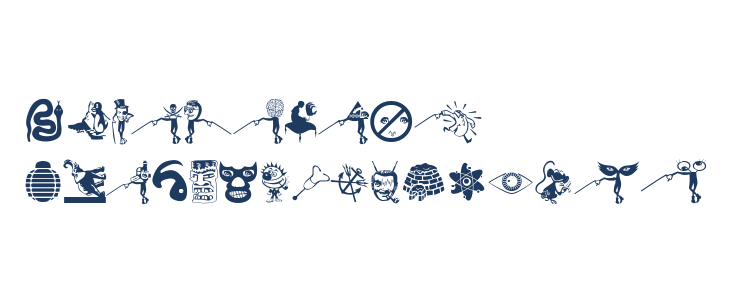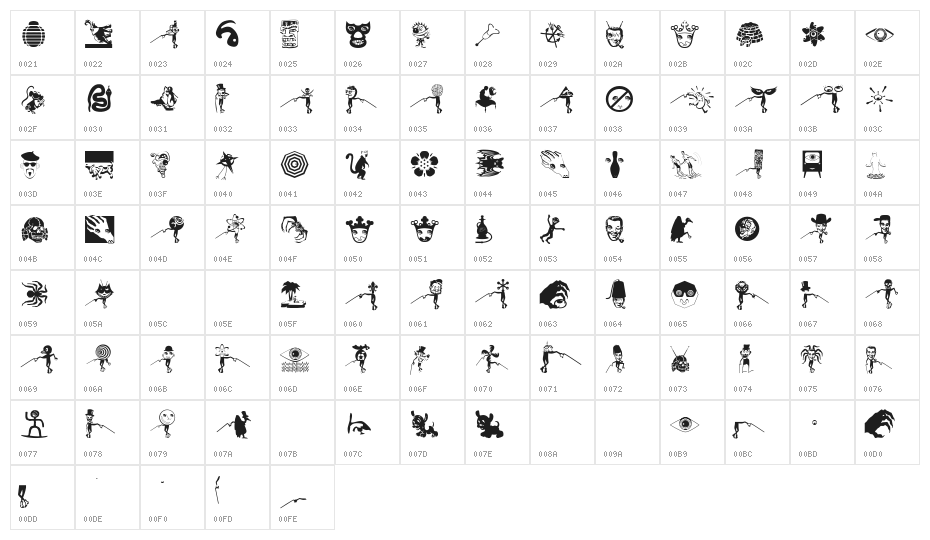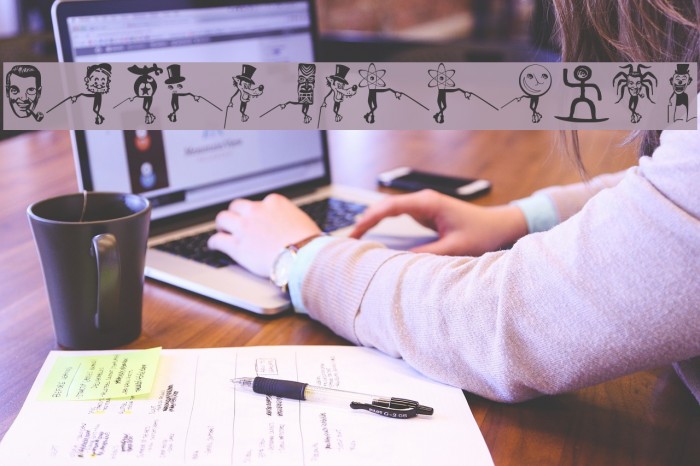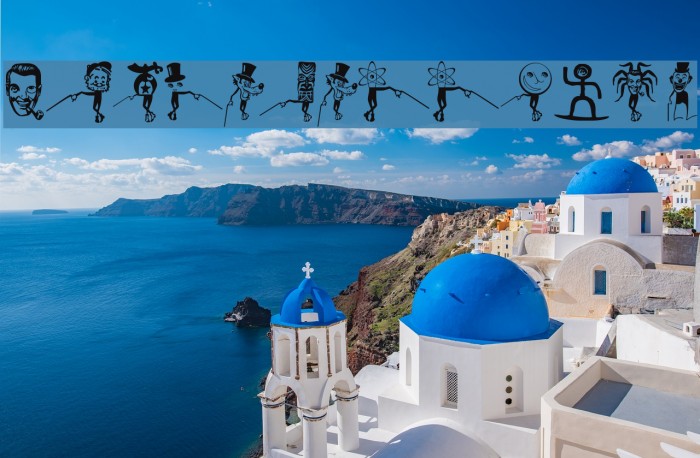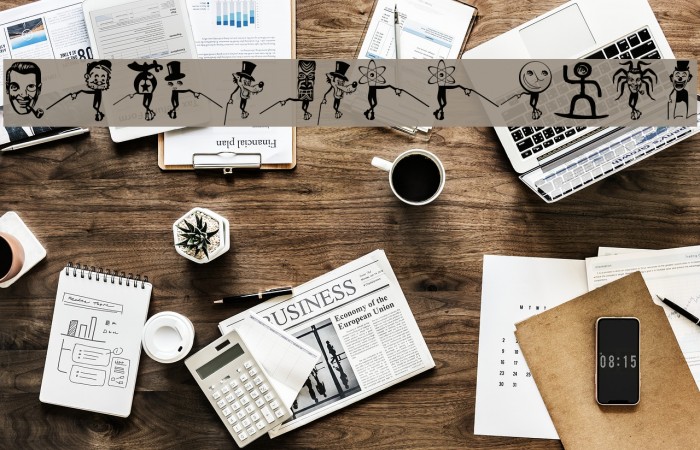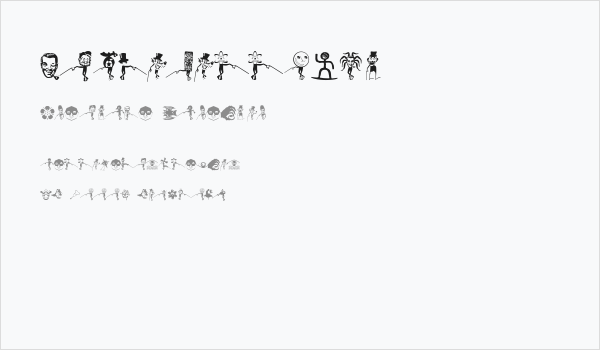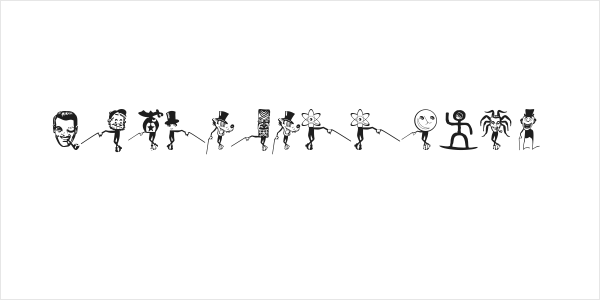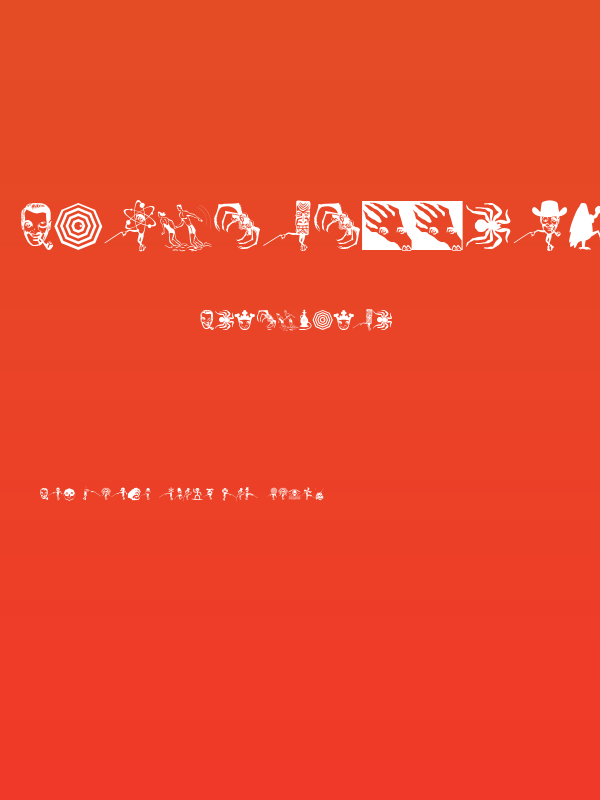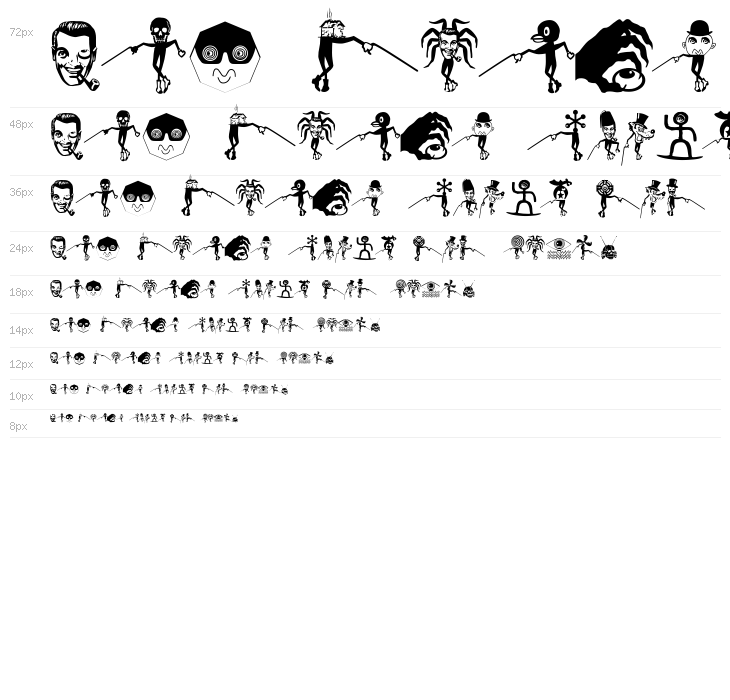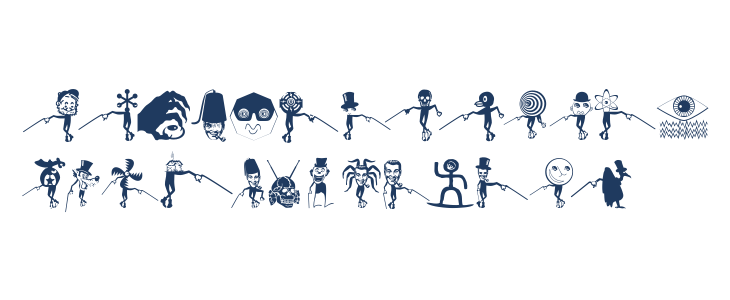
TangoHollywut Font
TangoHollywut Description
A highly decorative and eclectic dingbat font featuring surreal, whimsical, and pop-culture-inspired illustrations in place of standard alphanumeric characters. Each glyph is a unique, detailed black-and-white drawing, ranging from abstract faces and hands to animals, masks, and various objects, often with a playful or surreal twist.
| Overall Style | Decorative, Surreal, Whimsical, Pop-Art |
| Use Case | Logos, Posters, Illustrative Headlines, Art Projects |
| Proposed Projects | Poster art, album covers, zines, alternative comics, event flyers, creative branding, and editorial illustrations. |